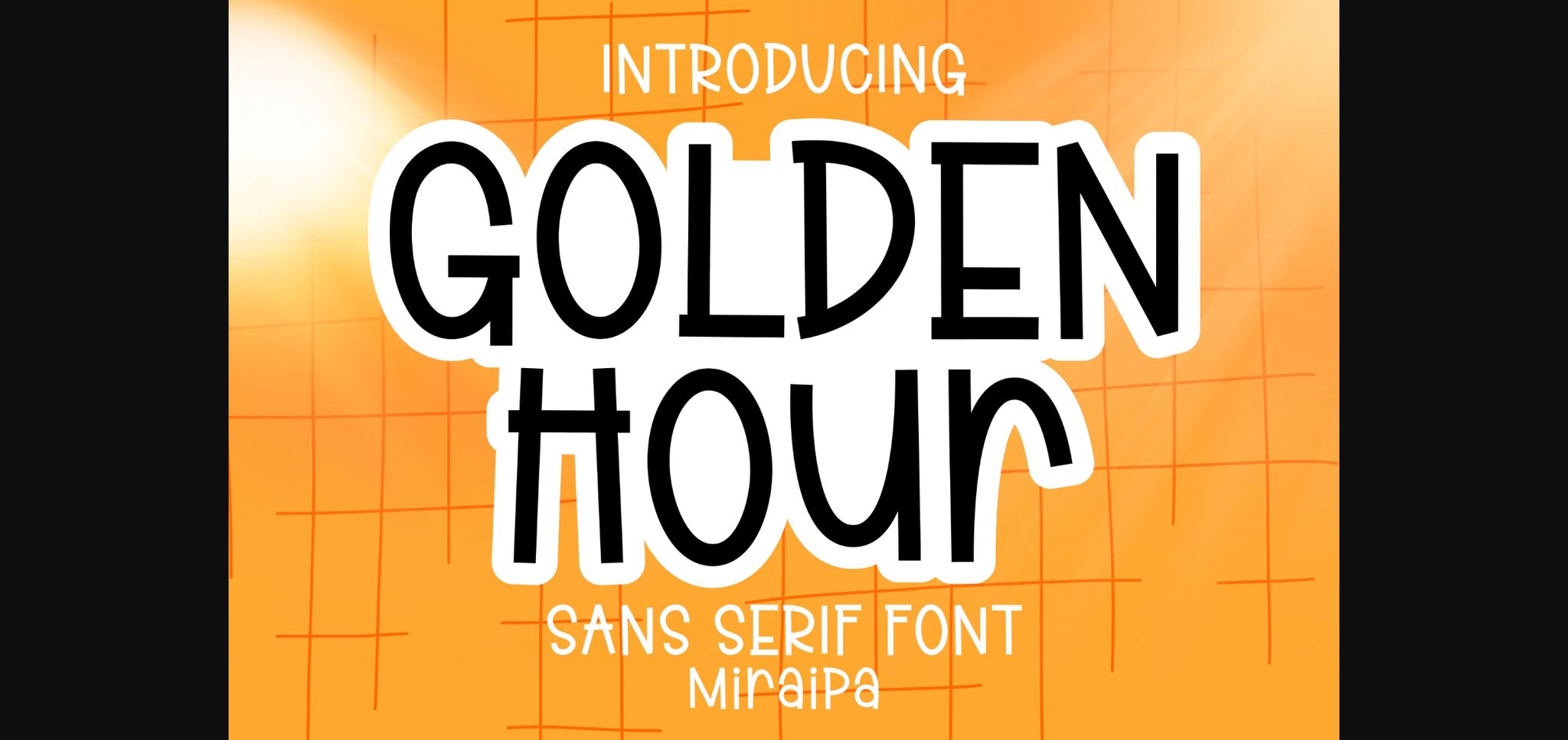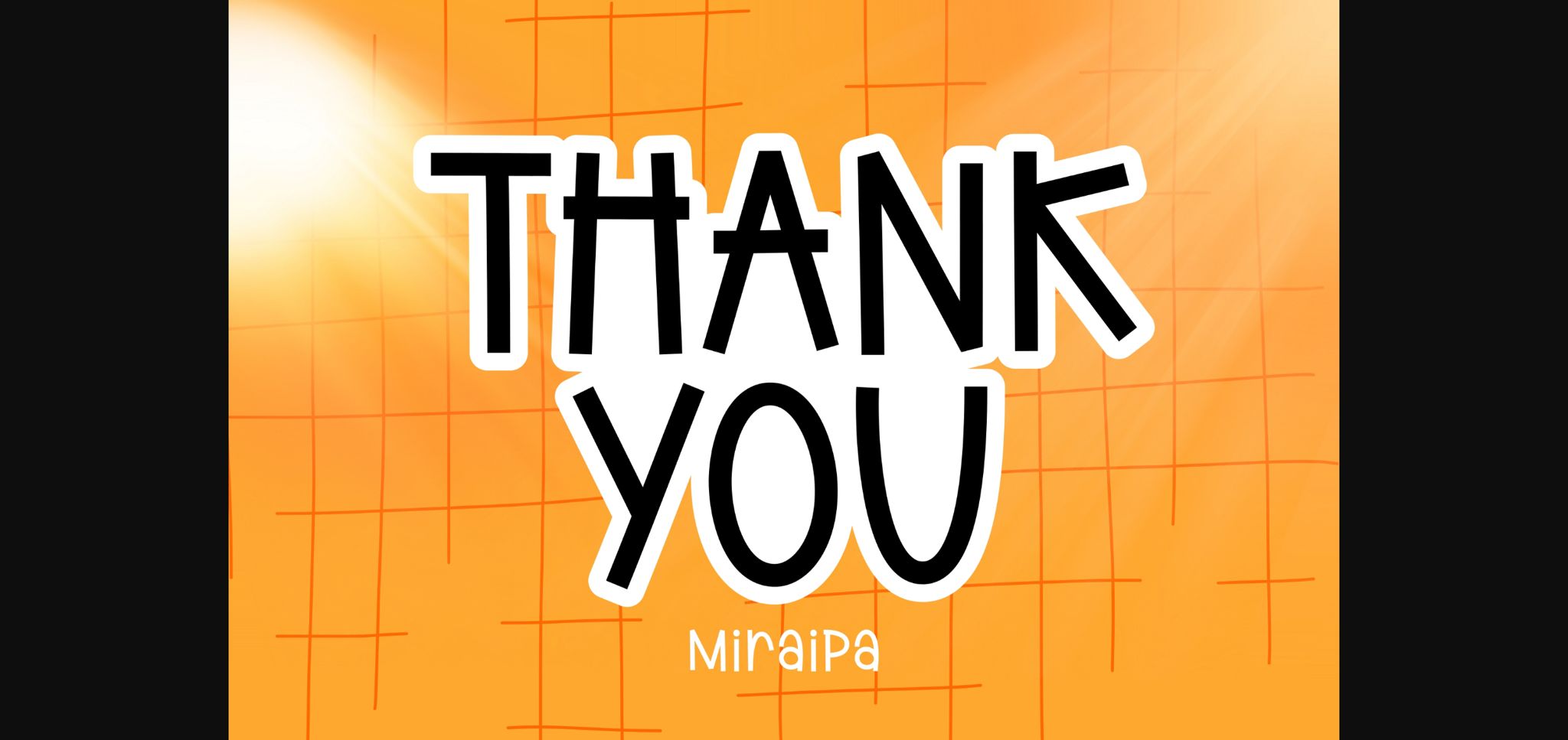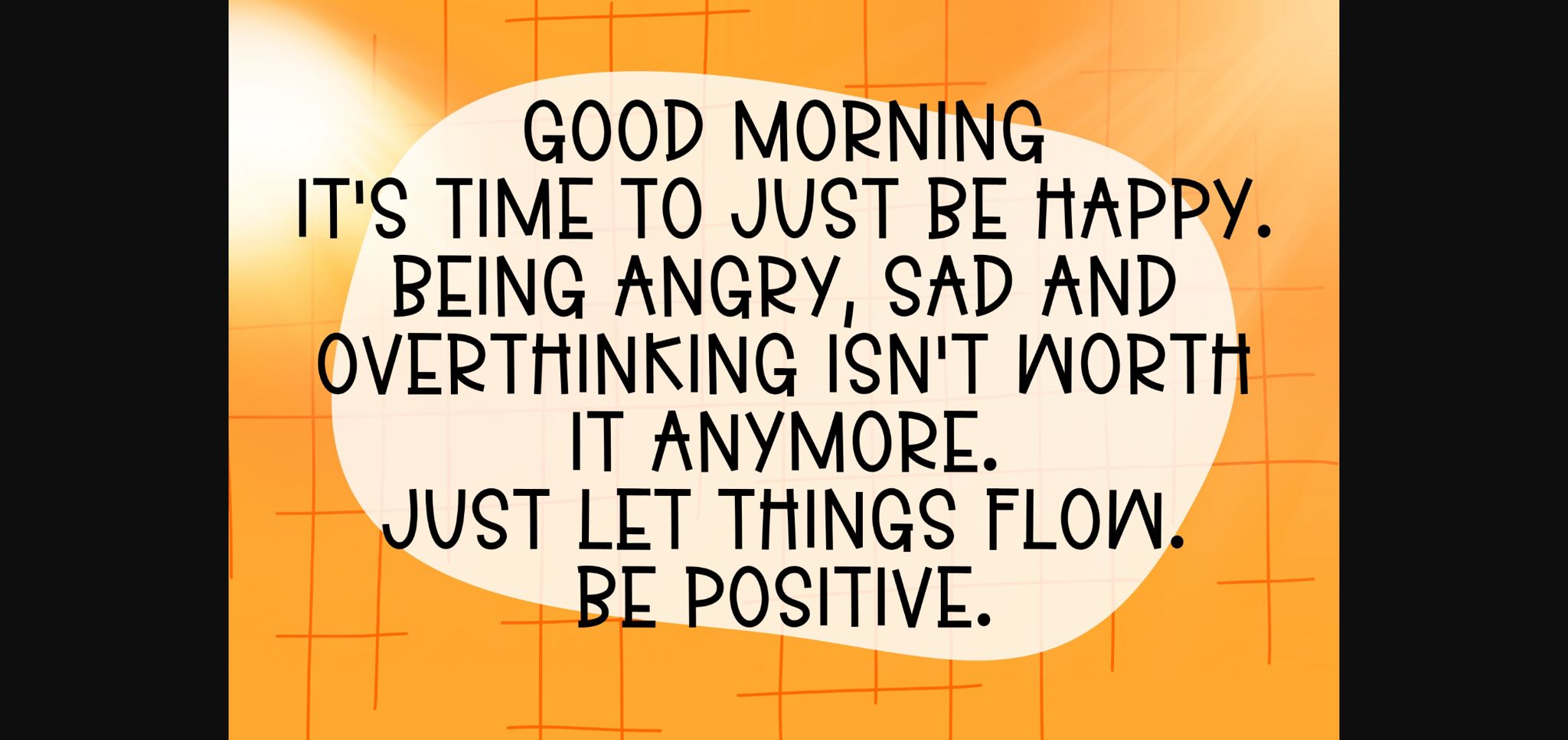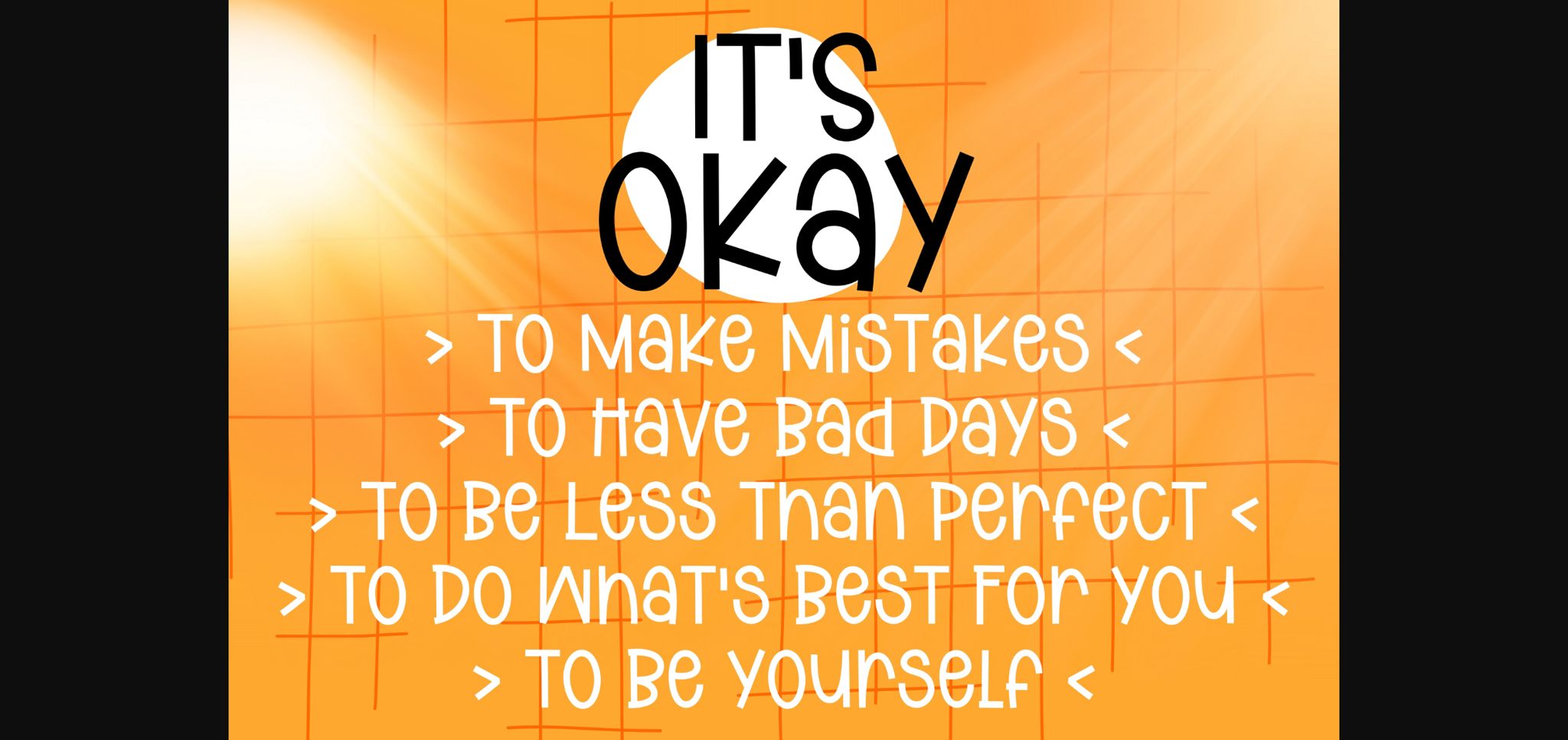
About Golden Hour Font
Golden Hour is a cute and friendly sans-serif font. It’s charming, whimsical, and a bit quirky. Add it now to your fonts library, and it will bring any of your DIY projects to life.